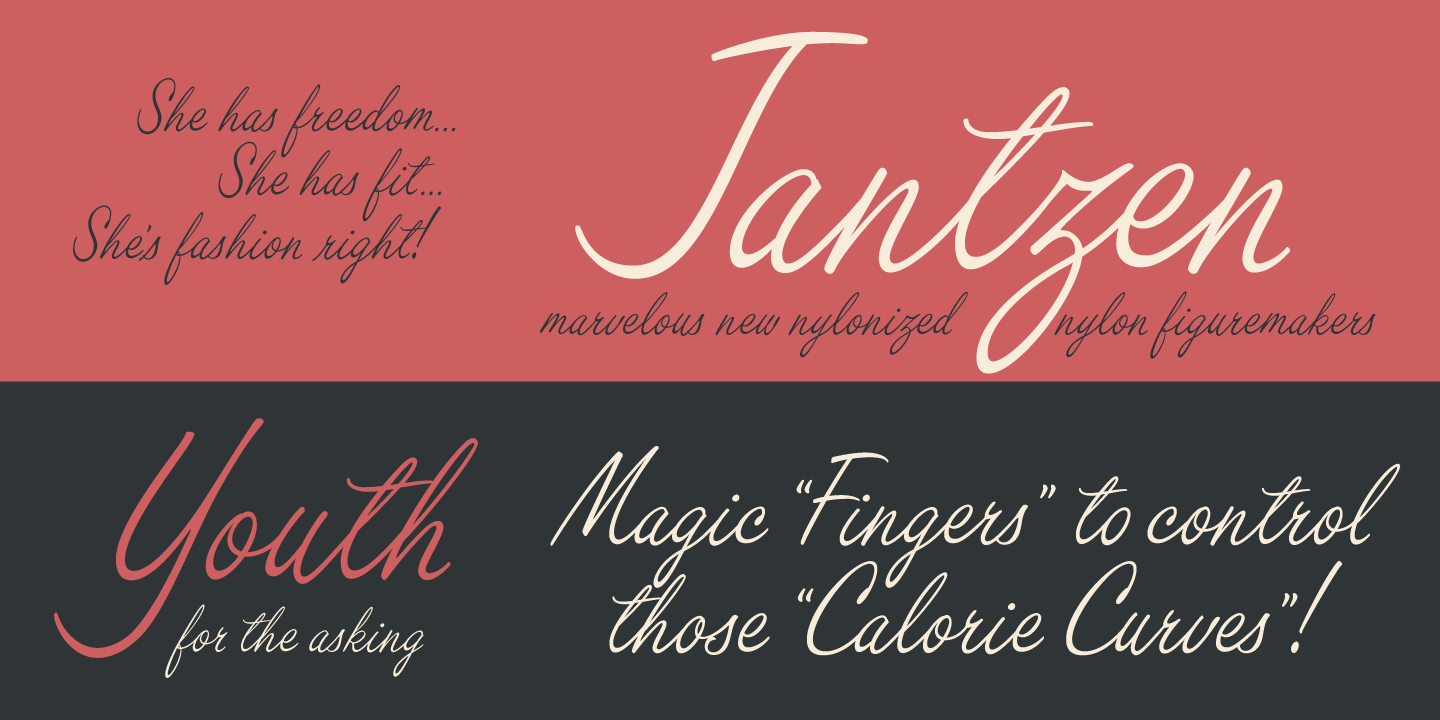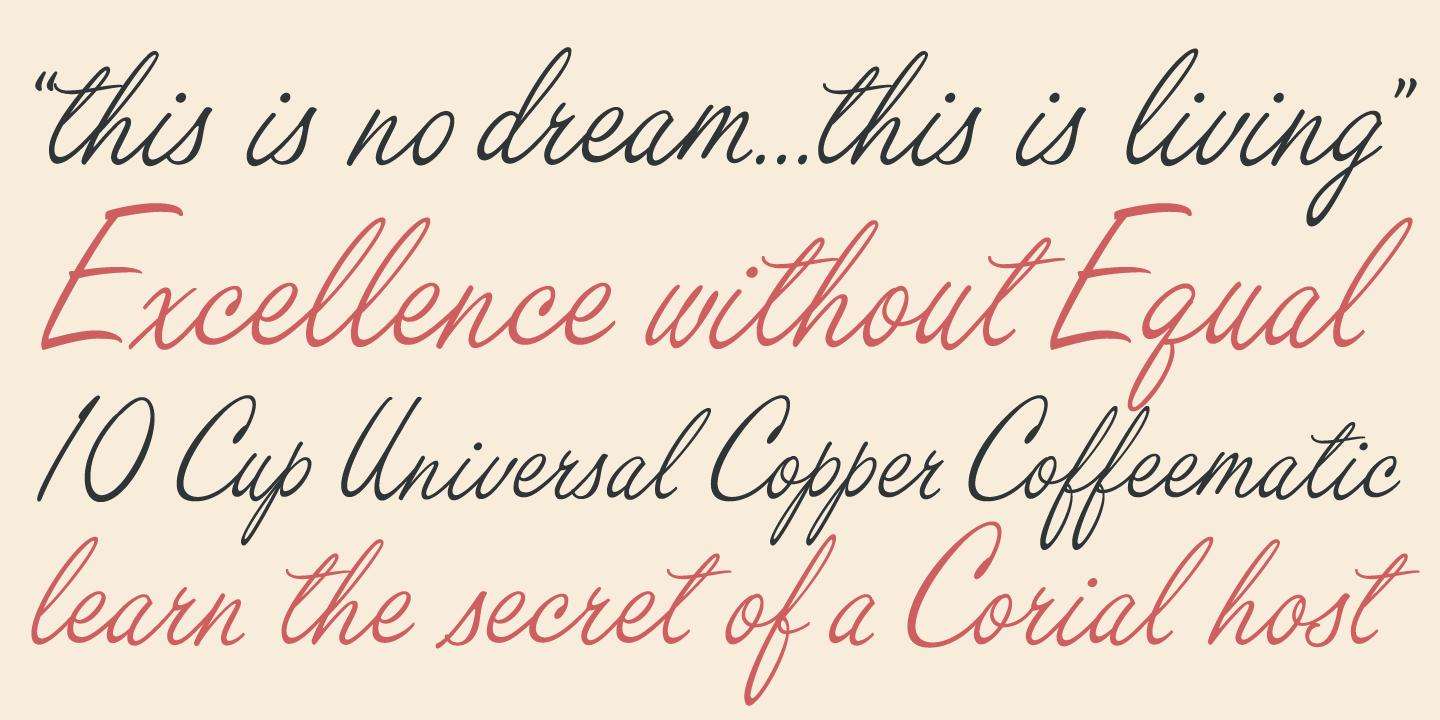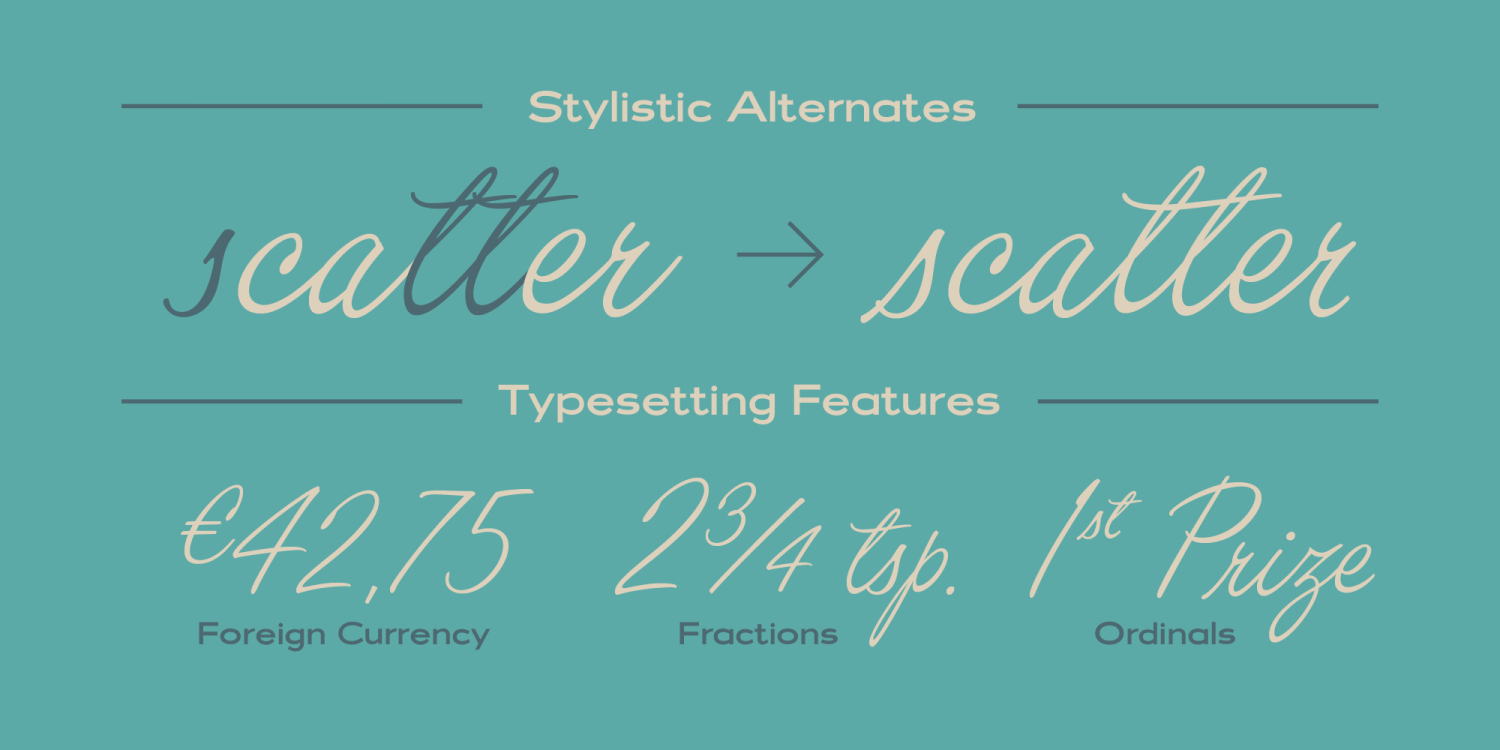
About Filmotype Kinzie
Filmotype Kinzie was released by Filmotype in 1955s as an attractive informal casual pen-script, also known as a jewelers script based on its use in department store catalogs and luxury store signage. Filmotype Kinzie was developed from the original…